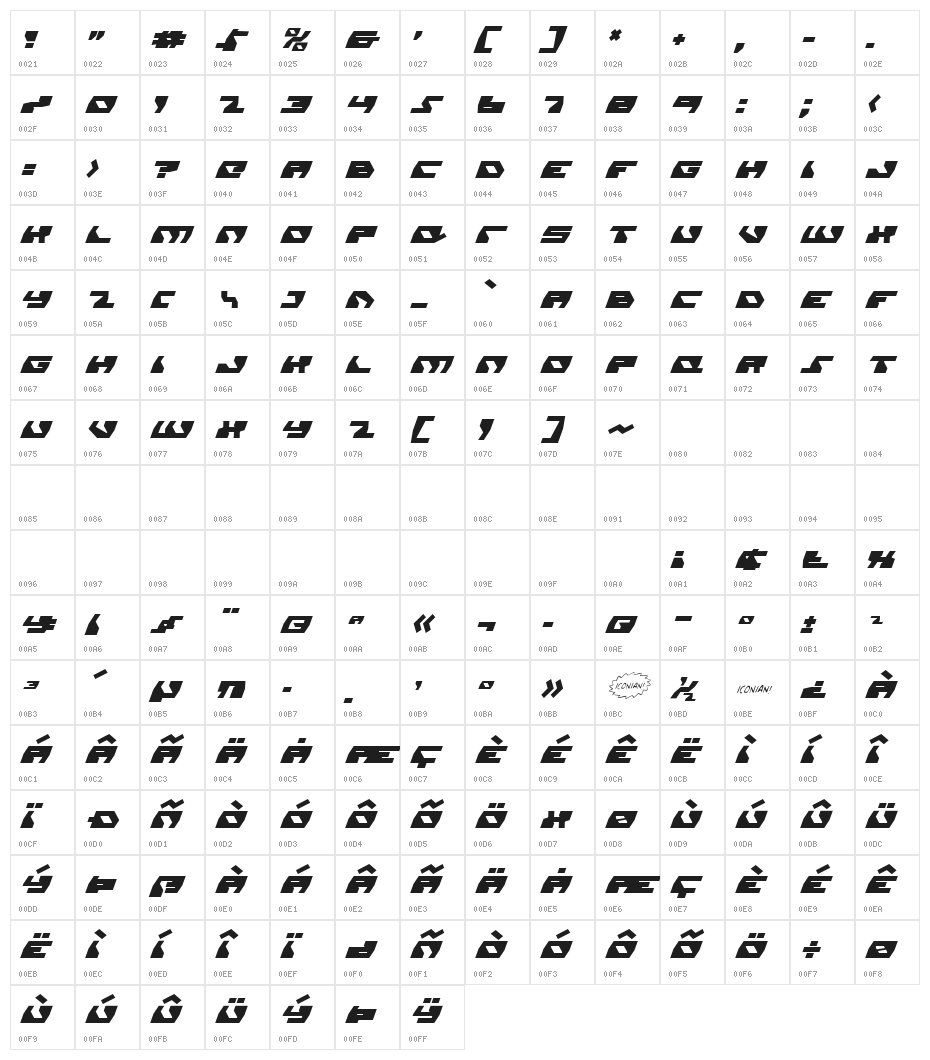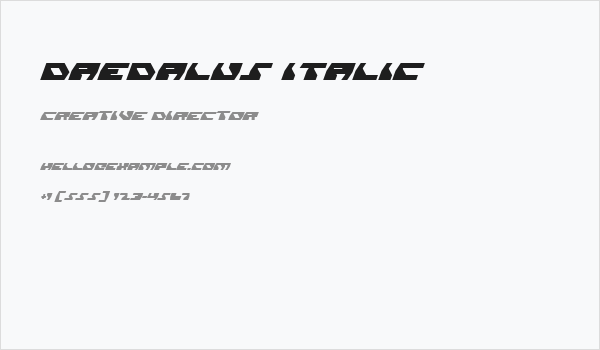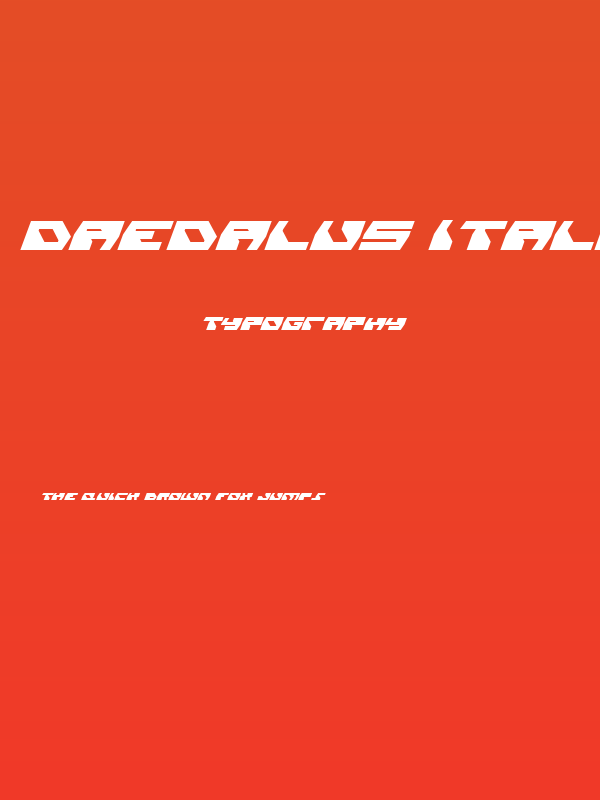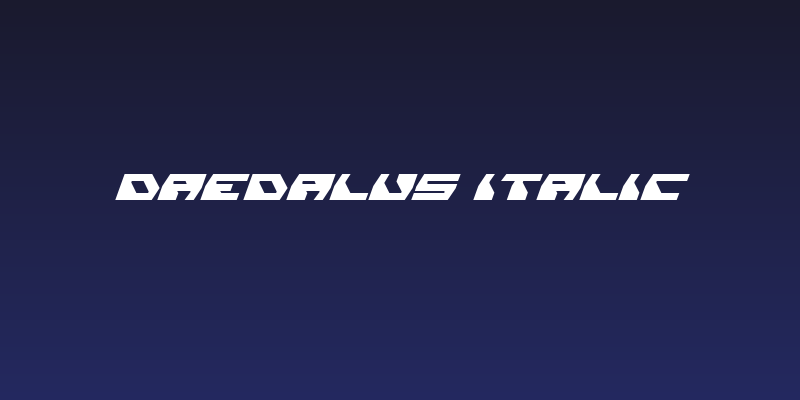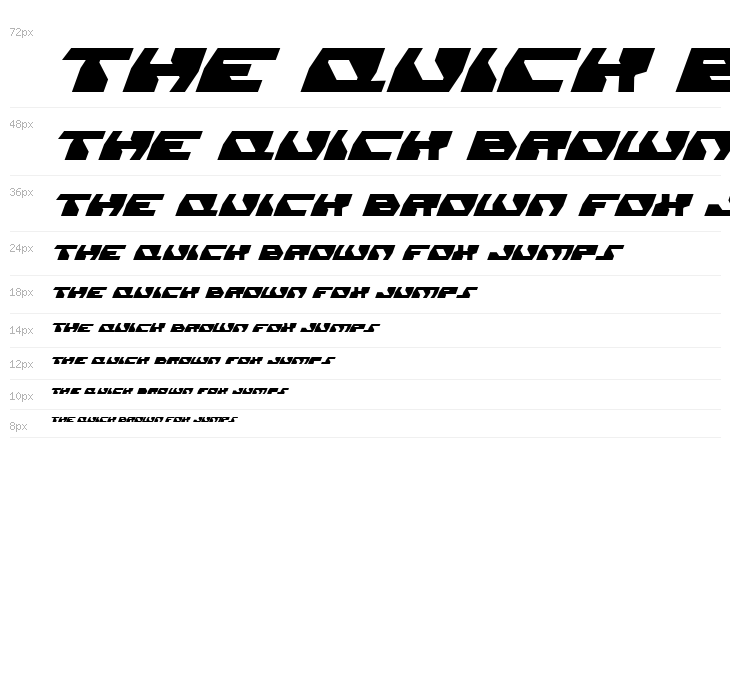
Daedalus Italic Font
Daedalus Italic Description
This font exhibits a bold, futuristic style with sharp, angular lines and a distinct italic slant. The characters are designed with a geometric precision, creating a sense of movement and speed. The uppercase and lowercase letters maintain a consistent style, with the lowercase slightly smaller but equally dynamic. Numbers and special characters follow the same design principles, ensuring uniformity across all glyphs. The font's unique appearance makes it stand out, ideal for projects that require a modern and edgy aesthetic.
| Proposed Projects | Ideal for sci-fi themed designs, video game titles, technology branding, and modern posters. |